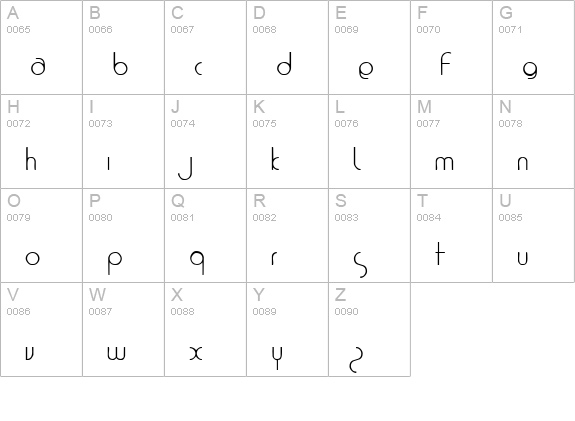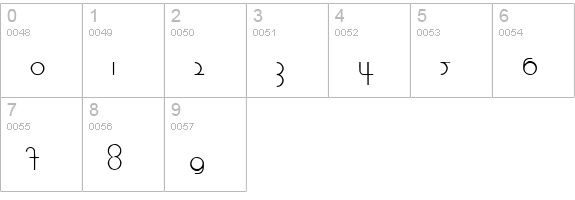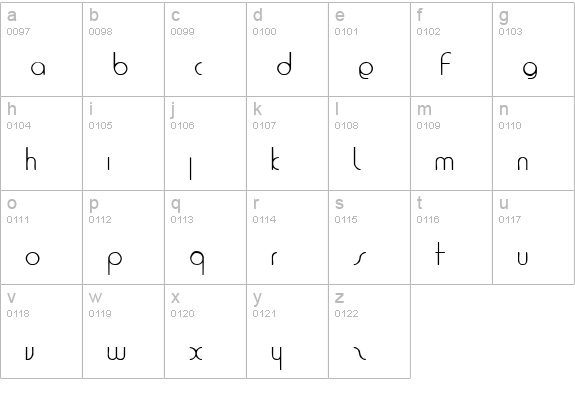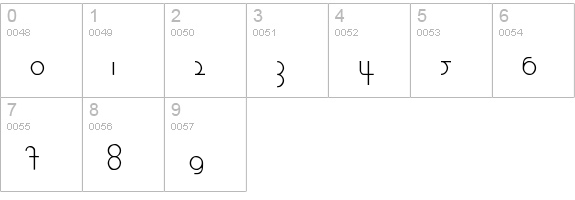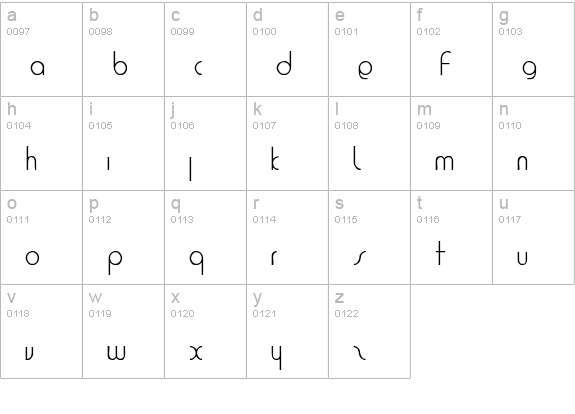
1920 Font Details
The 1920 font captures the essence of vintage elegance with its classic and timeless design. This stylish font features clean lines and sharp angles, reminiscent of the Art Deco era. Perfect for adding a touch of sophistication to your designs, the 1920 font exudes a sense of glamour and refinement. Best of all, this stunning font is available for free download at FontsMarket.com. Embrace the beauty and charm of the 1920 font in your projects and let its exquisite details elevate your creations to new heights.